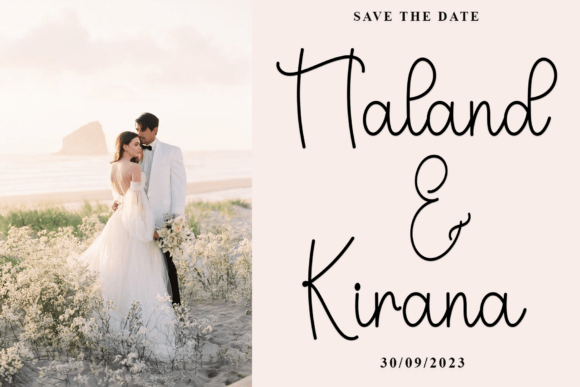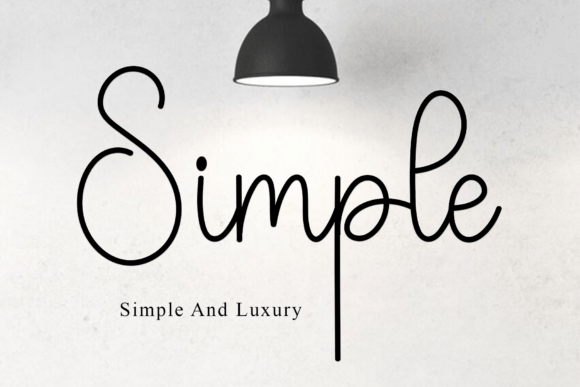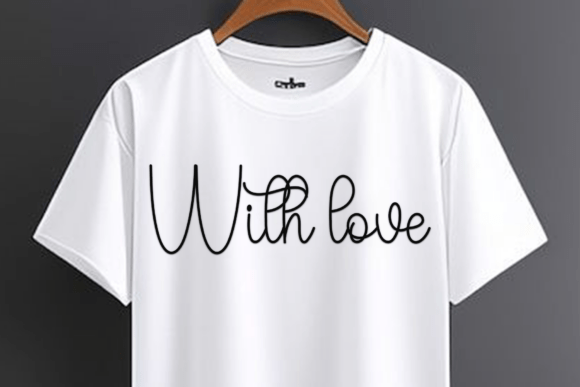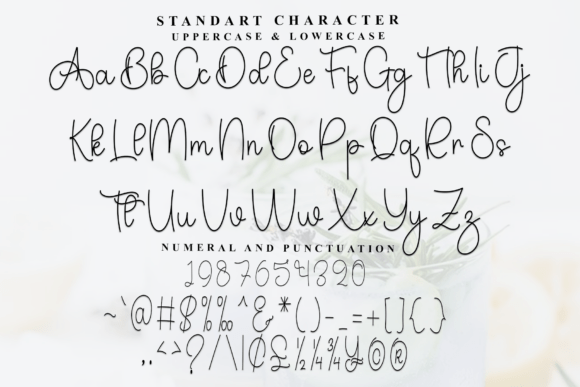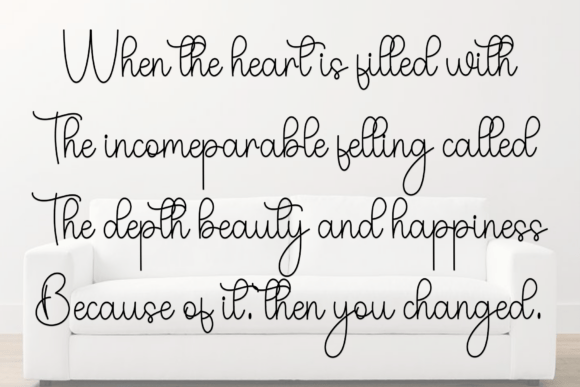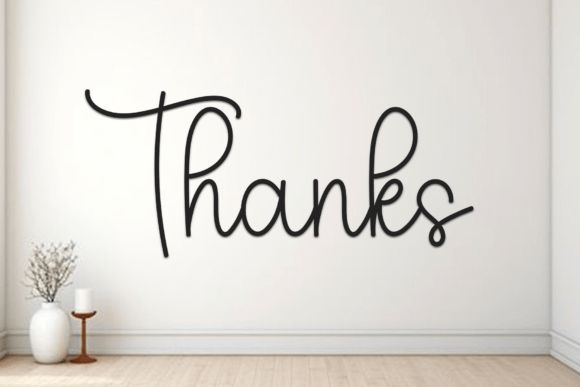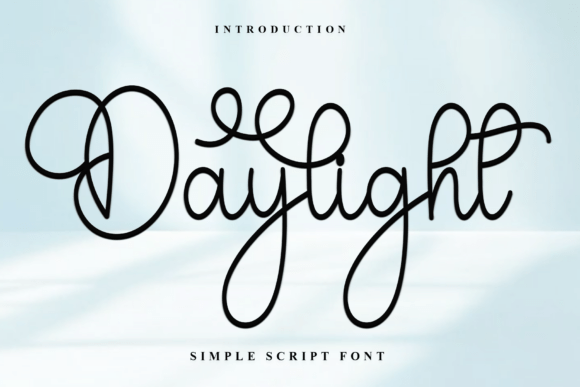
Introducing Daylight Font: Elevate Your Designs with a Unique and Eye-Catching Style
In the world of typography, fonts play a crucial role in making or breaking a design. A well-chosen font can elevate your creative project, making it more engaging and memorable for your audience. If you’re a designer, crafter, or creative enthusiast looking for a font that stands out from the crowd, look no further than Daylight Font. This beautiful and eye-catching font is designed with a soft, unique touch that will add a special character to your designs.
The Distinctive Features of Daylight Font
Daylight Font boasts distinctive strokes that give it a special character, making it meaningful and versatile for future use. Its unique design ensures that your creative projects will stand out from the rest, whether you’re working on a logo, branding materials, crafts, or other artistic endeavors. With a wide range of characters, Daylight Font is perfect for various design projects, allowing you to experiment with different styles and themes.
Versatility and Compatibility
Daylight Font is a dream come true for designers and crafters who want to add a personal touch to their creations. With its unique and eye-catching style, this font is perfect for a variety of projects, including:
- Logo design and branding materials
- Crafts, such as handmade cards, invitations, and gift tags
- Digital designs, including social media graphics, blog posts, and website headers
- Print materials, such as brochures, flyers, and posters
Why Choose Daylight Font?
So, why choose Daylight Font over other fonts available in the market? Here are just a few reasons:
- Unique and eye-catching style: Daylight Font’s distinctive strokes and soft touch make it a standout in any design project.
- Versatility: With a wide range of characters and compatibility with various applications, Daylight Font is perfect for different design projects and themes.
- High-quality design: Daylight Font is designed with high-quality and precision, ensuring that your designs look professional and polished.
Tips for Using Daylight Font
To get the most out of Daylight Font, here are a few tips to keep in mind:
- Experiment with different sizes and colors: Daylight Font looks great in different sizes and colors, so don’t be afraid to experiment and find the perfect combination for your design.
- Pair it with other fonts: Daylight Font pairs well with other fonts, so try combining it with different styles to create a unique and interesting design.
- Use it consistently: To create a cohesive look, use Daylight Font consistently throughout your design project.
In conclusion, Daylight Font is a beautiful and eye-catching font that is perfect for designers, crafters, and creative enthusiasts. With its unique and distinctive style, versatility, and compatibility with various applications, this font is ideal for a wide range of design projects. Whether you’re working on a logo, branding materials, crafts, or other artistic endeavors, Daylight Font is sure to elevate your designs and make them appealing to many audiences across different artistic and creative fields.